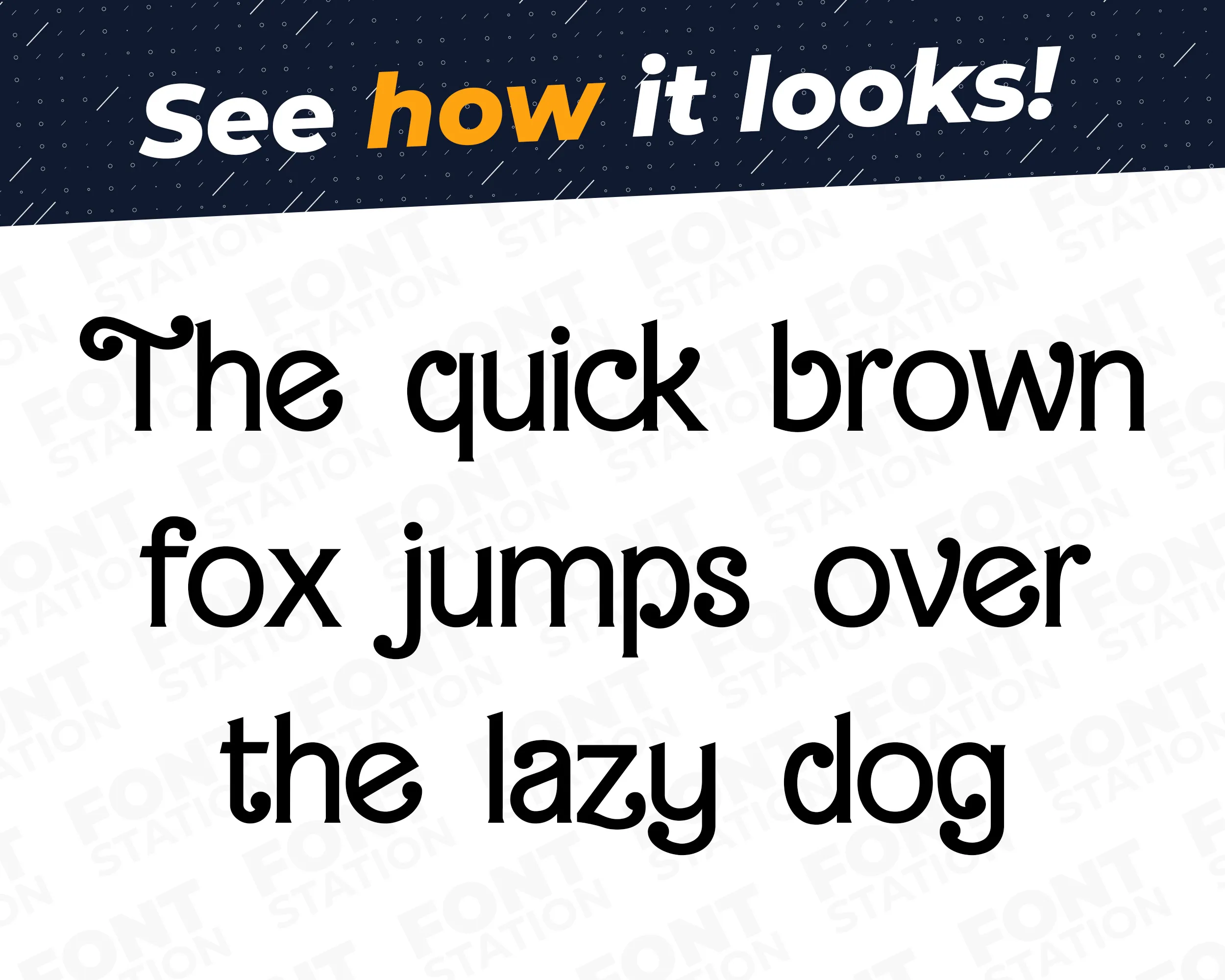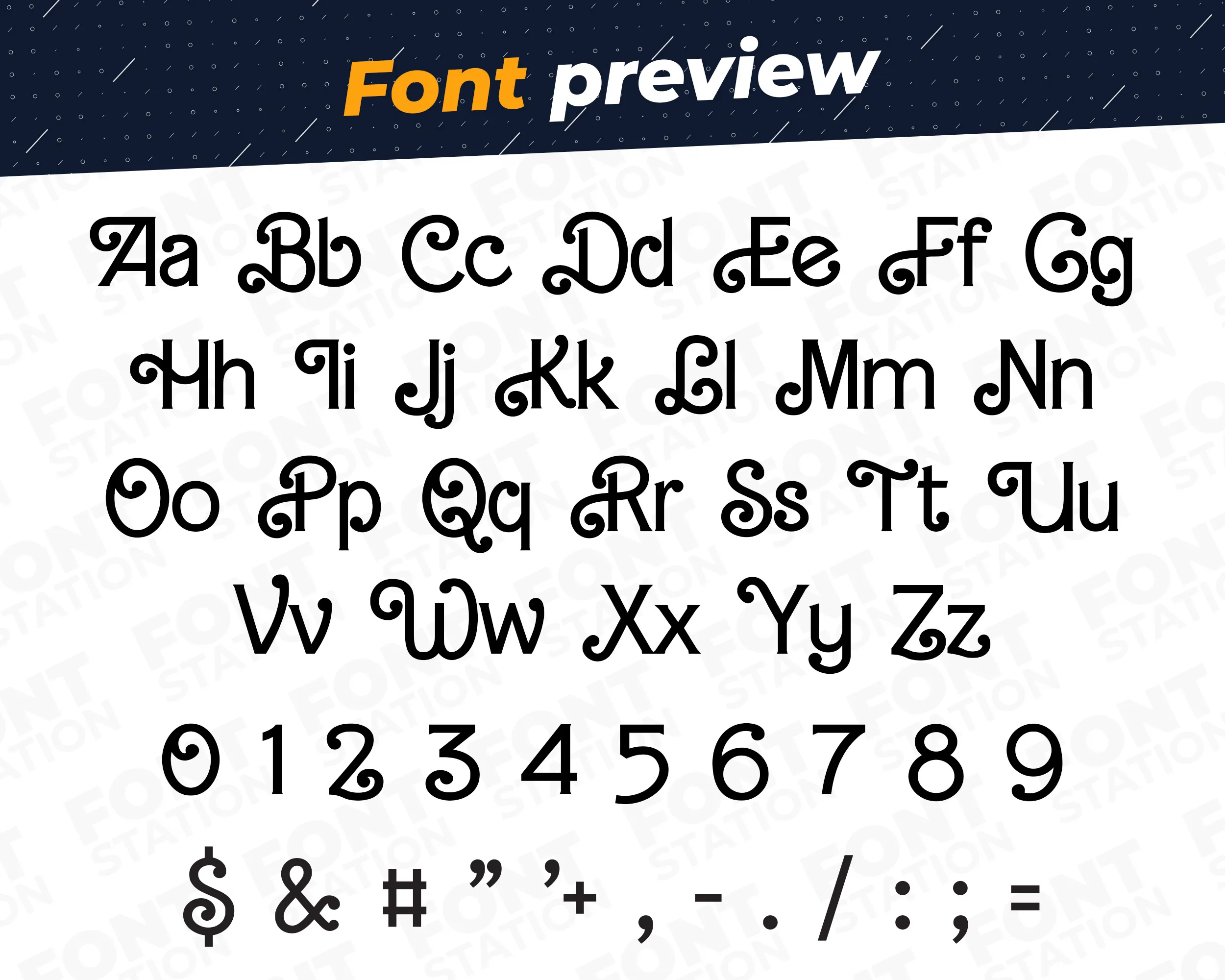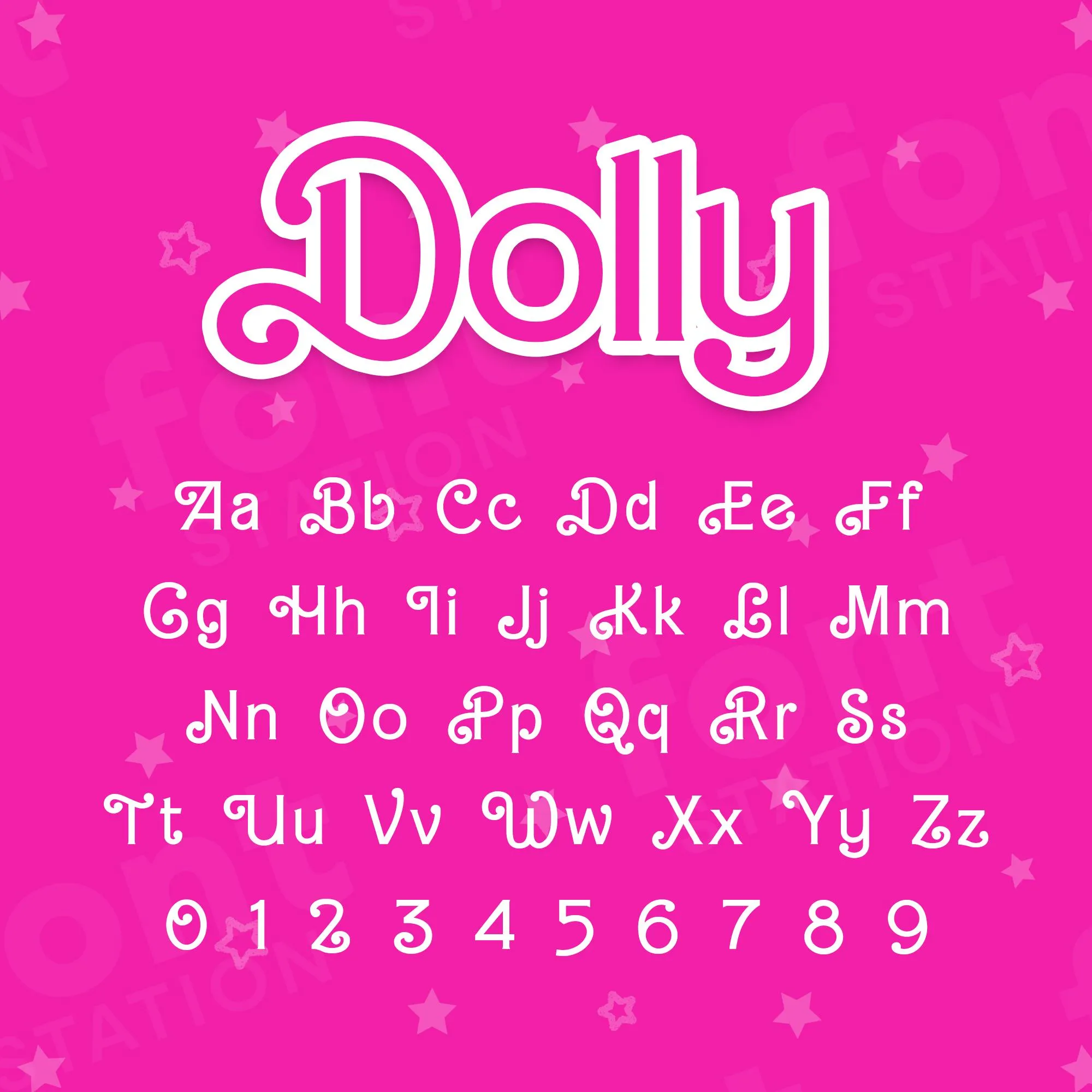
Our Retro Dolly typeface, inspired from Barbie font
Grab your computer, tablet or other device and start creating right now with our Barbie font letters! Our Retro Dolly typography is inspired from Barbie Movie font, making it ideal for various digital creations (logo, word…), sublimation, cake toppers, stickers, event decorations, and more.